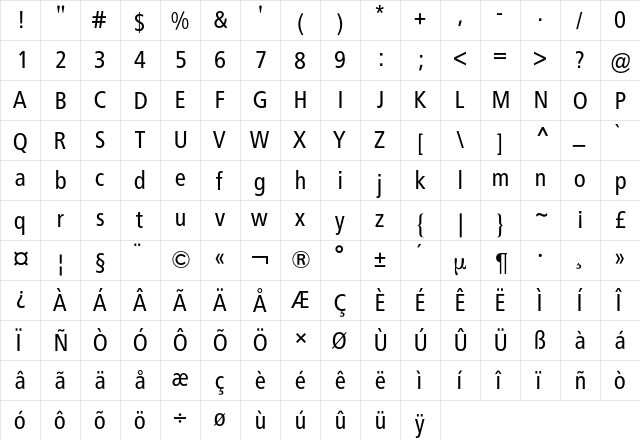
Frutiger BQ Regular
Design Context for Frutiger BQ Typeface
Frutiger BQ offers clean, dependable letterforms without strong stylistic allegiance, making it a practical choice for designers who need flexibility.